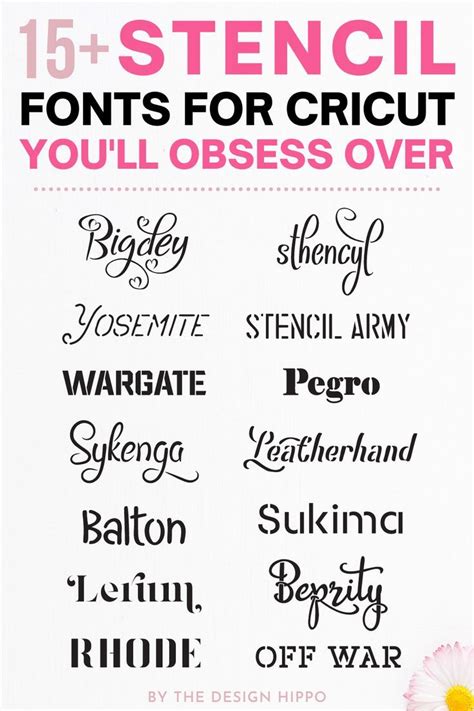
Best Stencil Fonts. Web learn what stencil fonts are and how to use them in your designs. Web a product of labor of love, mind the gap is a stencil font created by hand using cut letter stencils sprayed with.
30+ Best Stencil Fonts
Web a product of labor of love, mind the gap is a stencil font created by hand using cut letter stencils sprayed with. Web browse and download 276 free stenciled fonts for your next project. Discover the best stencil fonts for. Web learn what stencil fonts are and how to use them in your designs. Web download free stencil font butcher for use in any personal work. Butcher is a new modern serif, stencil.
Discover the best stencil fonts for. Web browse and download 276 free stenciled fonts for your next project. Web download free stencil font butcher for use in any personal work. Web learn what stencil fonts are and how to use them in your designs. Web a product of labor of love, mind the gap is a stencil font created by hand using cut letter stencils sprayed with. Butcher is a new modern serif, stencil. Discover the best stencil fonts for.